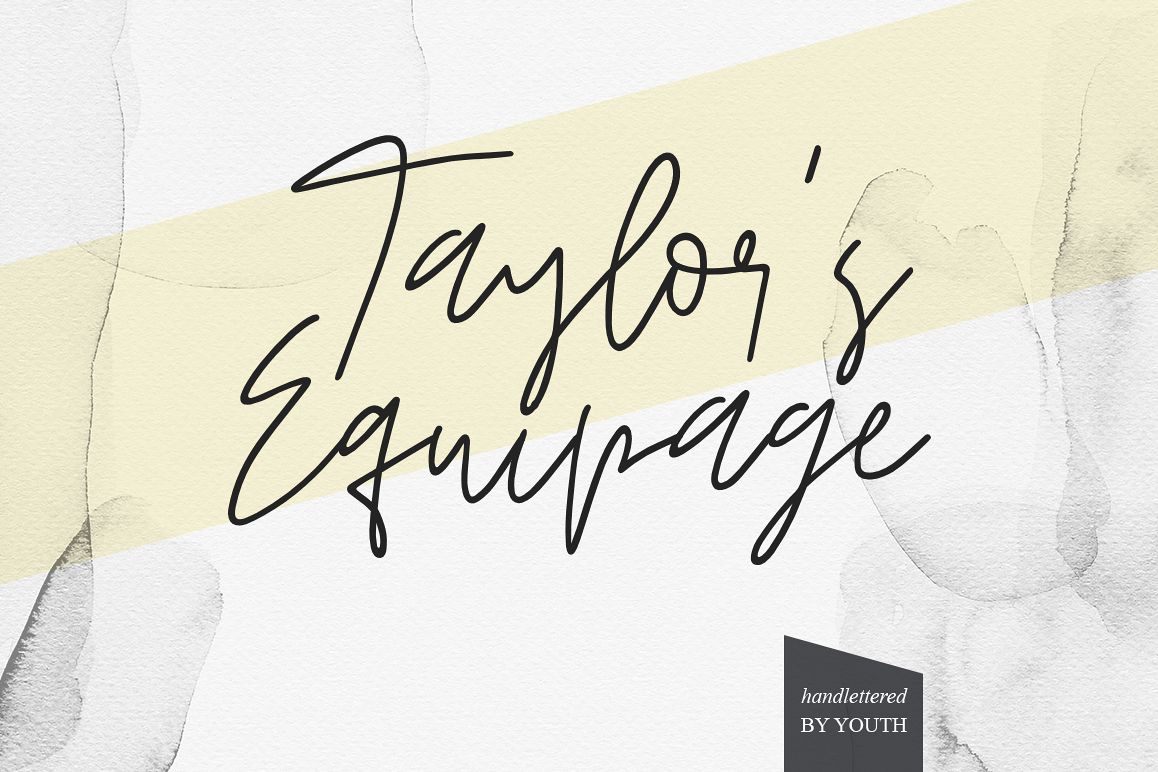
Taylor's Equipage handwritten script
This monoline calligraphy script  has been attentively written, with gentle curves to produce a font thats completely distinctive and original. It contains a full set of lower & uppercase letters, a large range of punctuation, numerals, and multilingual support. Perfect for adding a elegant and unique touch to your lettering projects and branding*